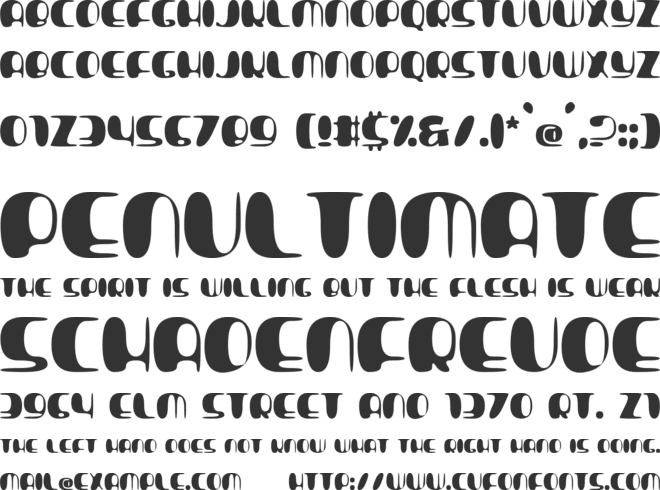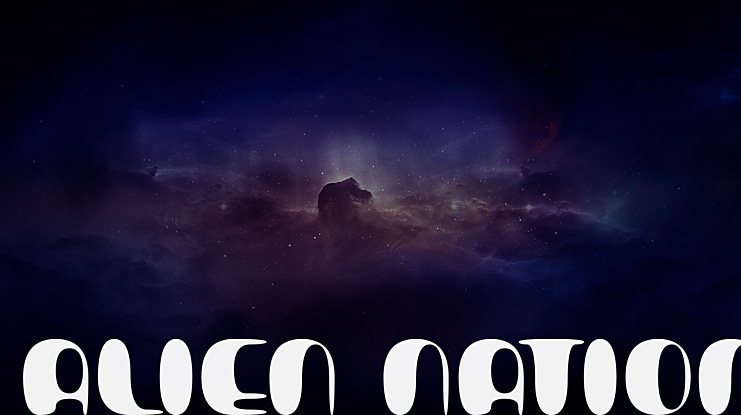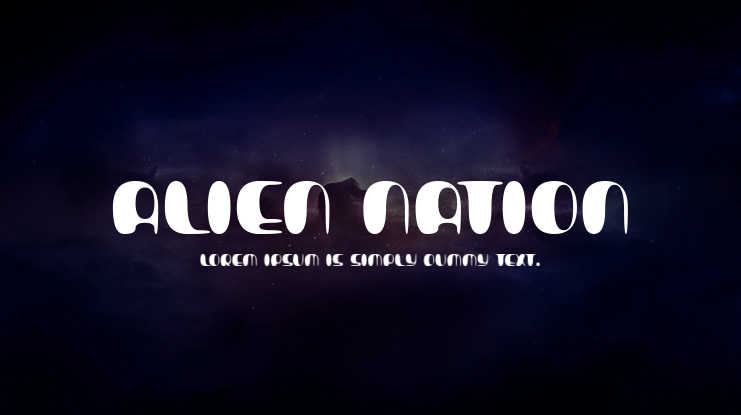
Alien Nation Font Family
Alien Nation is a retro styled display font. Whether you’re looking for fonts for Instagram or calligraphy scripts for DIY projects, this font will turn any creative idea into a true piece of art!